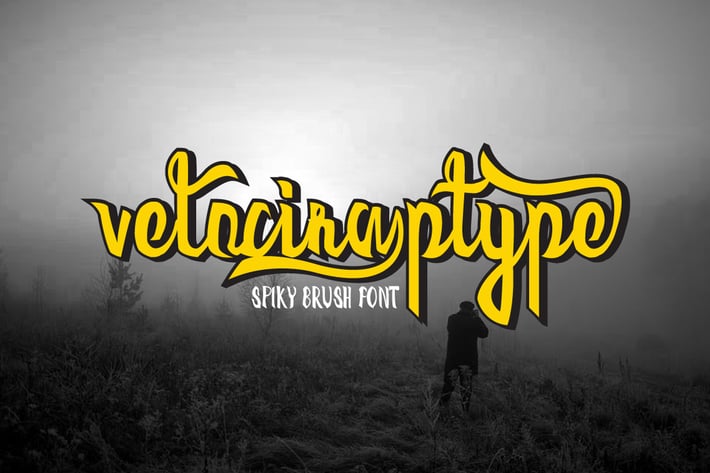
Velociraptype Font
Introducing Velociraptype a Brush Calligrahpy Font with street style, created on 2017, reflect the Cool and futuristic on one precious font.
What's Inside the font?
Regular Font with over 100 glyphs inside.
- Special Ligatures.
- Special Swashes